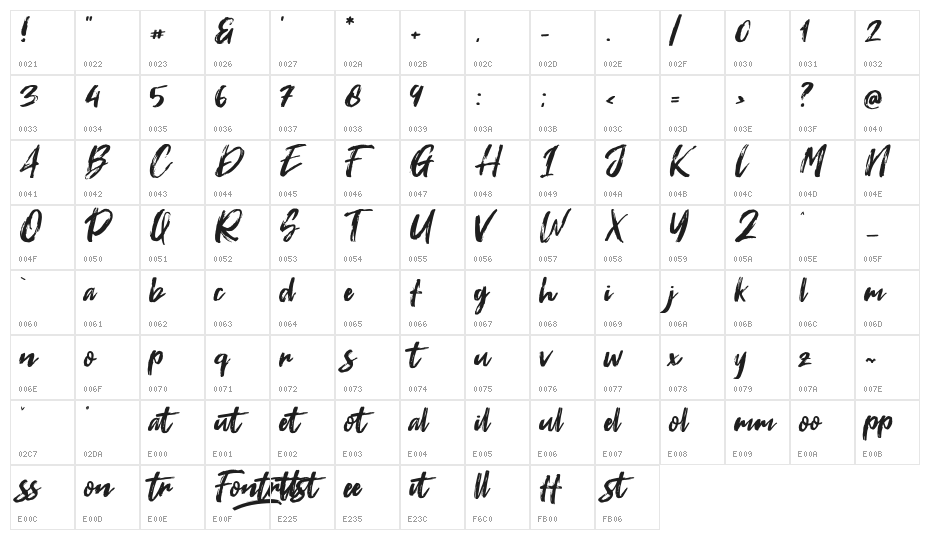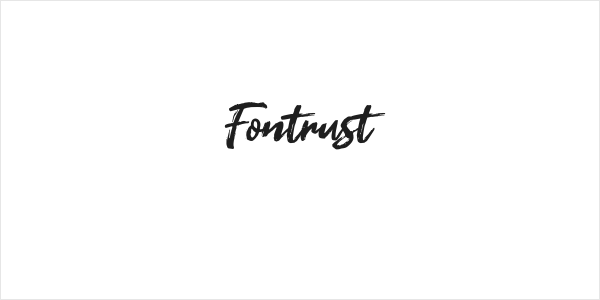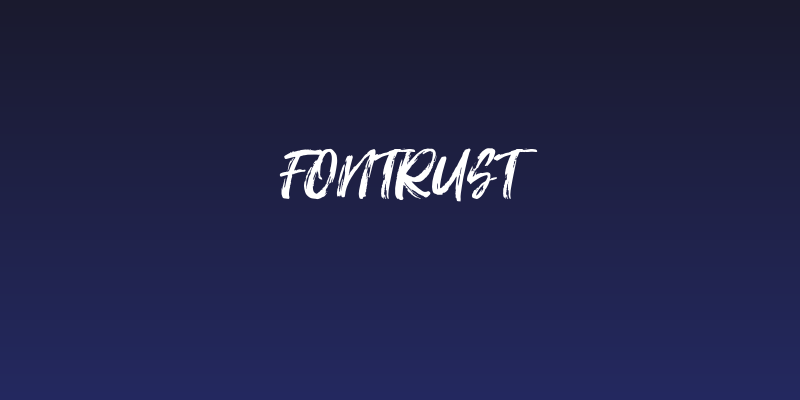
Fontrust Font
Fontrust Description
This font features a bold, expressive brush style that exudes energy and dynamism. The strokes are thick and uneven, mimicking the natural flow of hand-painted lettering. Each character has a unique flair, with varying stroke widths that add a sense of movement and spontaneity. The uppercase letters are particularly striking, with dramatic curves and angles, while the lowercase letters maintain a more fluid and cohesive appearance. Numbers and special characters are equally bold, maintaining the overall aesthetic. This font is perfect for projects that require a strong, artistic touch.
| Use Case | Logos, Headlines, Posters |
| Proposed Projects | Ideal for branding, posters, album covers, and any creative project needing an artistic flair. |